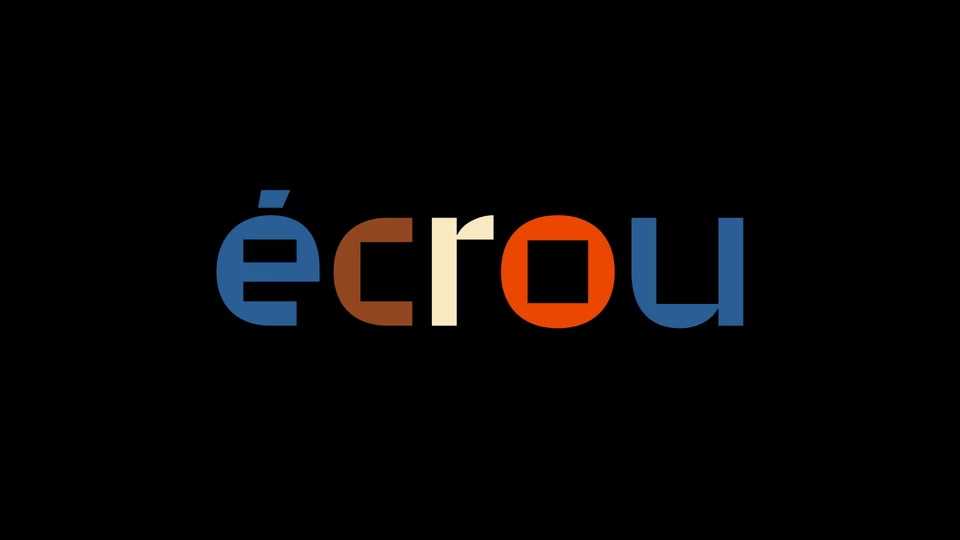
Download Écrou font, a high-x-height display typeface with a bold mechanical style. A geometric combination of smooth rounded contours and sharp square shapes creates a visual contrast and makes Écrou font a perfect choice for headlines, posters, banners, and text highlighting.
Designer: Guillaume Santial